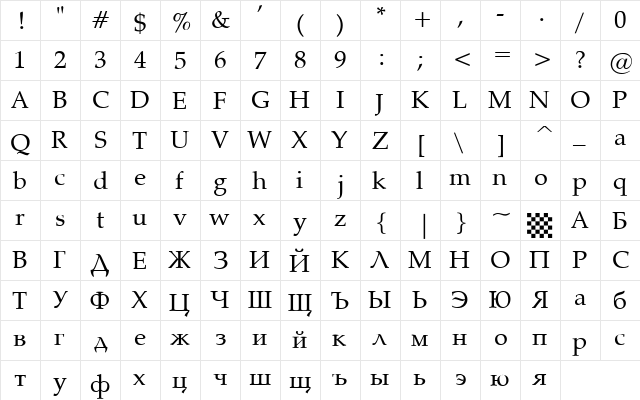
PalatinoR Regular
Design Context for PalatinoR Typeface
PalatinoR takes a measured approach to typography — its balanced proportions and neutral character make it a reliable workhorse for both digital and print work.